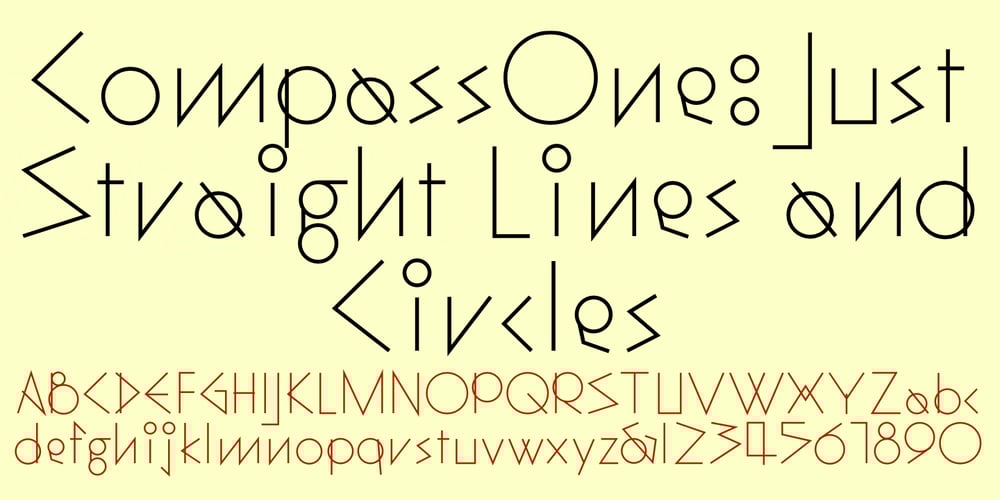
CompassOne Font Family was designed by Robert Schenk and published by Ingrimayne Type. CompassOne contains 1 styles and family package options. CompassOne was a design I began in 1990 or so, but did not bother to finish until five years later. Its name comes from the fact that all the letters could have been drawn with a compass (which draws circles) and a straight edge. There are a number of other digital typefaces composed with circles and straight lines that are inspired by Art Deco fonts, but that was not the inspiration of this font. The typeface Demotte was a further development of this design idea.